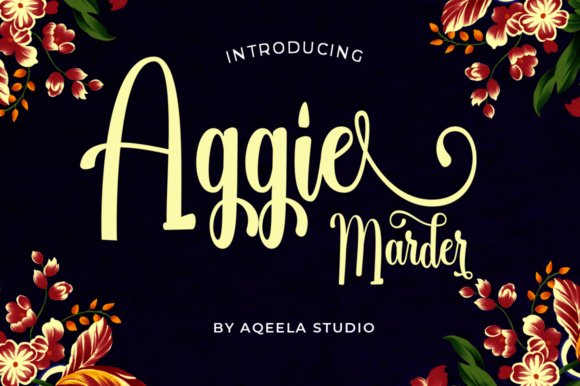
Introduction to Aggie Marder Script Font
The Aggie Marder is a modern calligraphy script.
It has characters dancing along the baseline which gives it an elegant touch It can be used for various purposes such as: logos, invitations, headings, t-shirts, letterheads, and much more.
Key Features of Aggie Marder Script Font